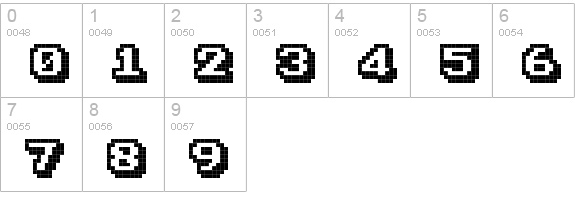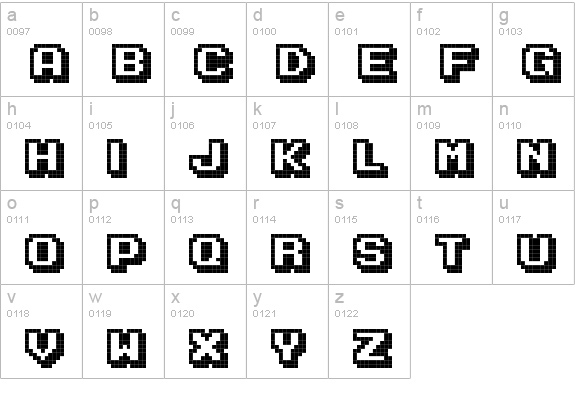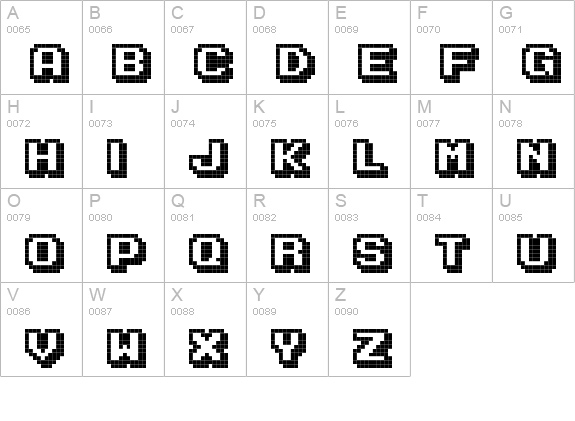
Karmatic Arcade Font Details
The Karmatic Arcade font is a playful and energetic display typeface that will take your designs to the next level. With its quirky and retro-inspired design, this font exudes a sense of fun and nostalgia, making it perfect for projects that require a touch of whimsy. What sets Karmatic Arcade apart is its unique character shapes and bold, eye-catching style that will make your text pop on any layout. Whether you're working on a branding project, poster design, or social media graphics, this font is sure to make a statement. Best of all, Karmatic Arcade is available for free download at FontsMarket.com, giving you easy access to this dynamic font for all your creative needs. Don't miss out on this fantastic opportunity to add a touch of personality and charm to your designs with Karmatic Arcade!